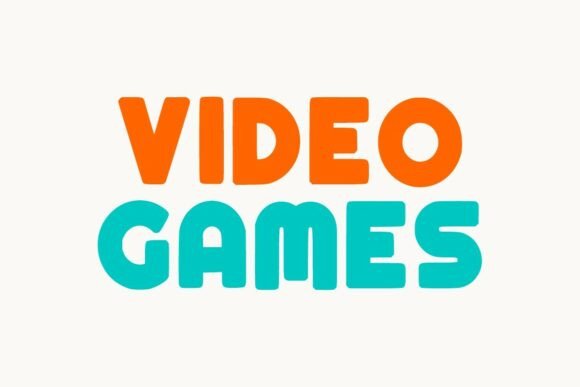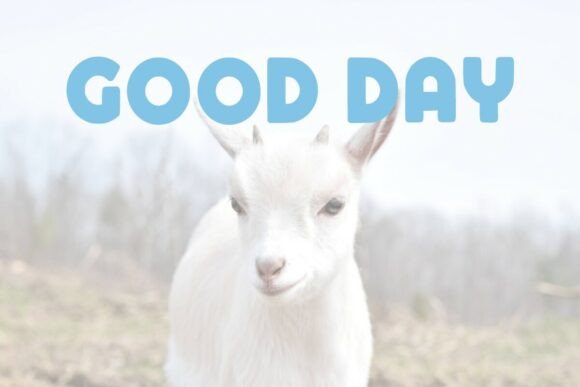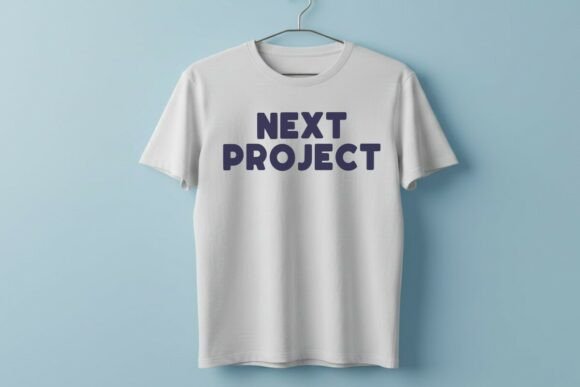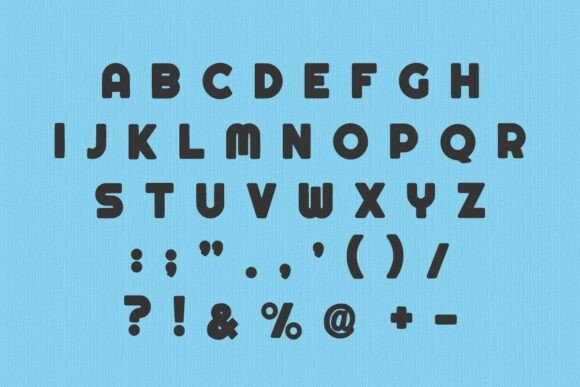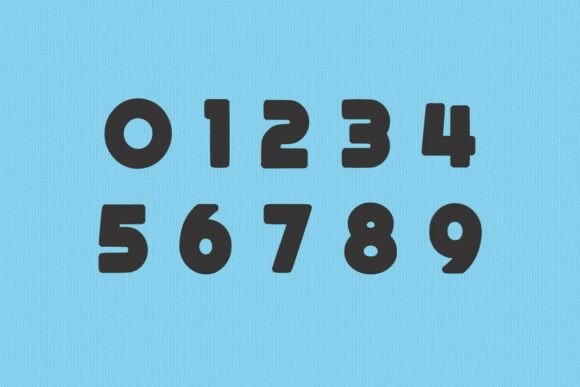
Introduction to Friday Party Font
Friday Party: Bold and Playful Display Font Get the celebration started with Friday Party , a bold, chunky, and irresistibly playful display font.
Characterized by its thick, rounded letterforms and a vibrant, bouncy structure , this typeface radiates pure, unadulterated fun It’s designed to be loud, friendly, and visually energetic, making it impossible to overlook.
Key Features of Friday Party Font
Why Choose Friday Party Font?